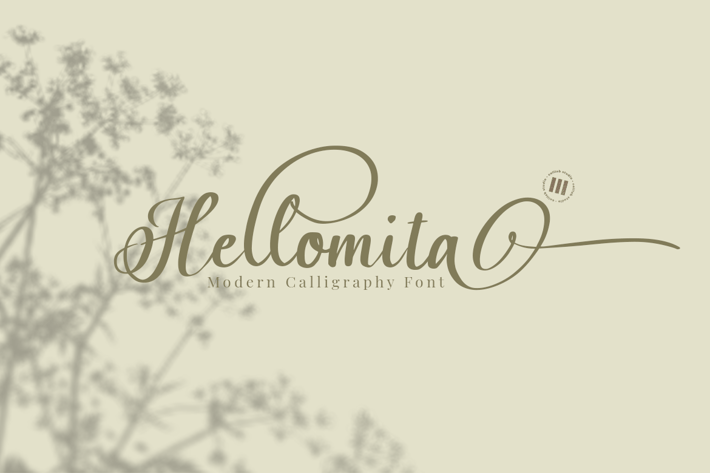
Hellomita - A Modern Calligraphy Font
Introducing Hellomita, a modern calligraphy font that’s sleek, chic, and just a little bit funky. It’s great for everything from invitations to product packaging to restaurant menus to business cards, and it has full Latin language support.
Hellomita is a font that specially designed and dedicated for the all entrepreneurs who want their branding to stand out from the crowd. It’s perfect for everything from your Instagram bio to your website homepage.
The name “Hellomita” is a combination of two words: “hello,” meaning a greeting, and “mita,” meaning pen. We want the font to be friendly and approachable but also elegant. The font should look like it was made by hand and should have a bit of a whimsical feel.
The exciting part is Hellomita comes with 500+ characters (includes Uppercase, Lowercase, Number, Punctuation), bunch of ligatures and the most exciting part is Hellomita comes with 18 SETS OF STYLISTICS ALTERNATE, can you imagine your brand with this font?
- PUA ENCODED
- 571Glyphs,
- 19 Ligatures & Swashes
- 18 Sets of Stylistic Alternate.
- Multilanguage Support ( 64 Languages )